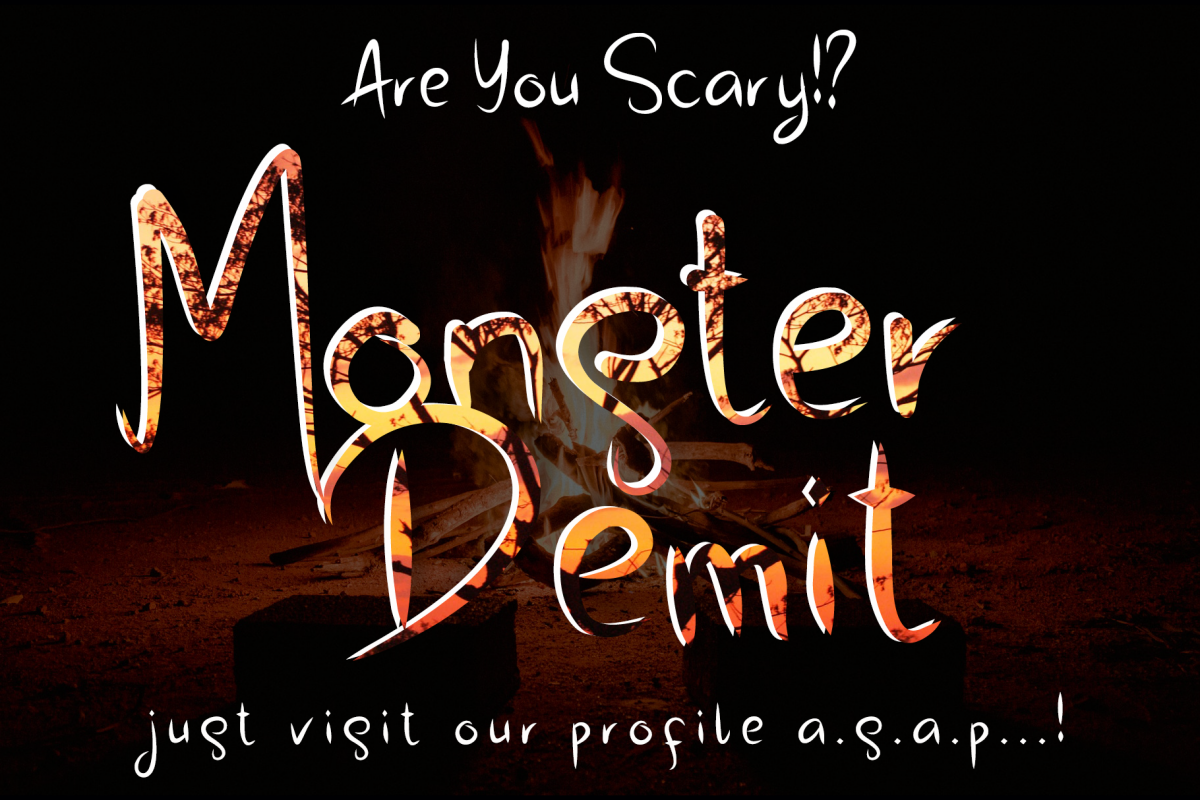
Monster Demit
Monster Demit is a great font for your any project! This font made with unique taste, comes with natural touch. We keep this font looks readable, elegant, stylish, catchy and absolutly easy to use.